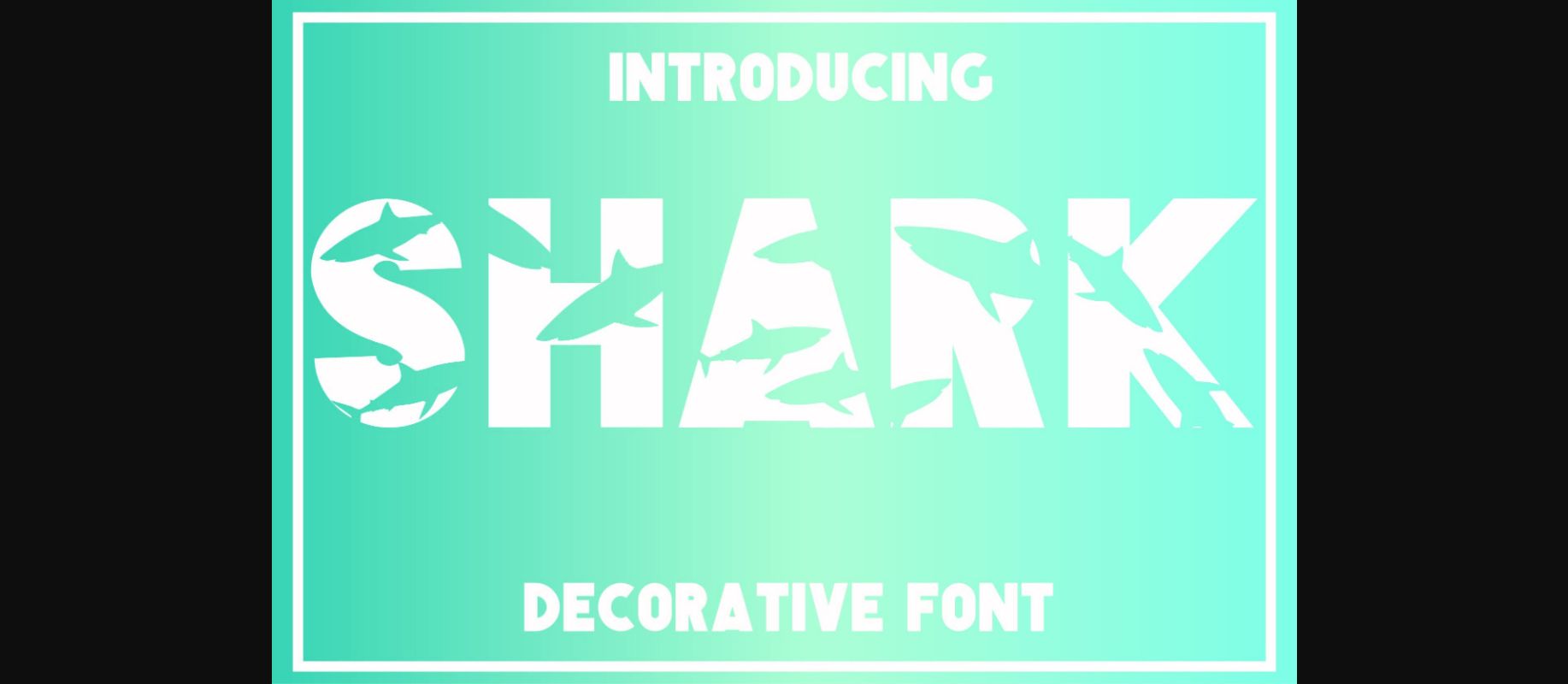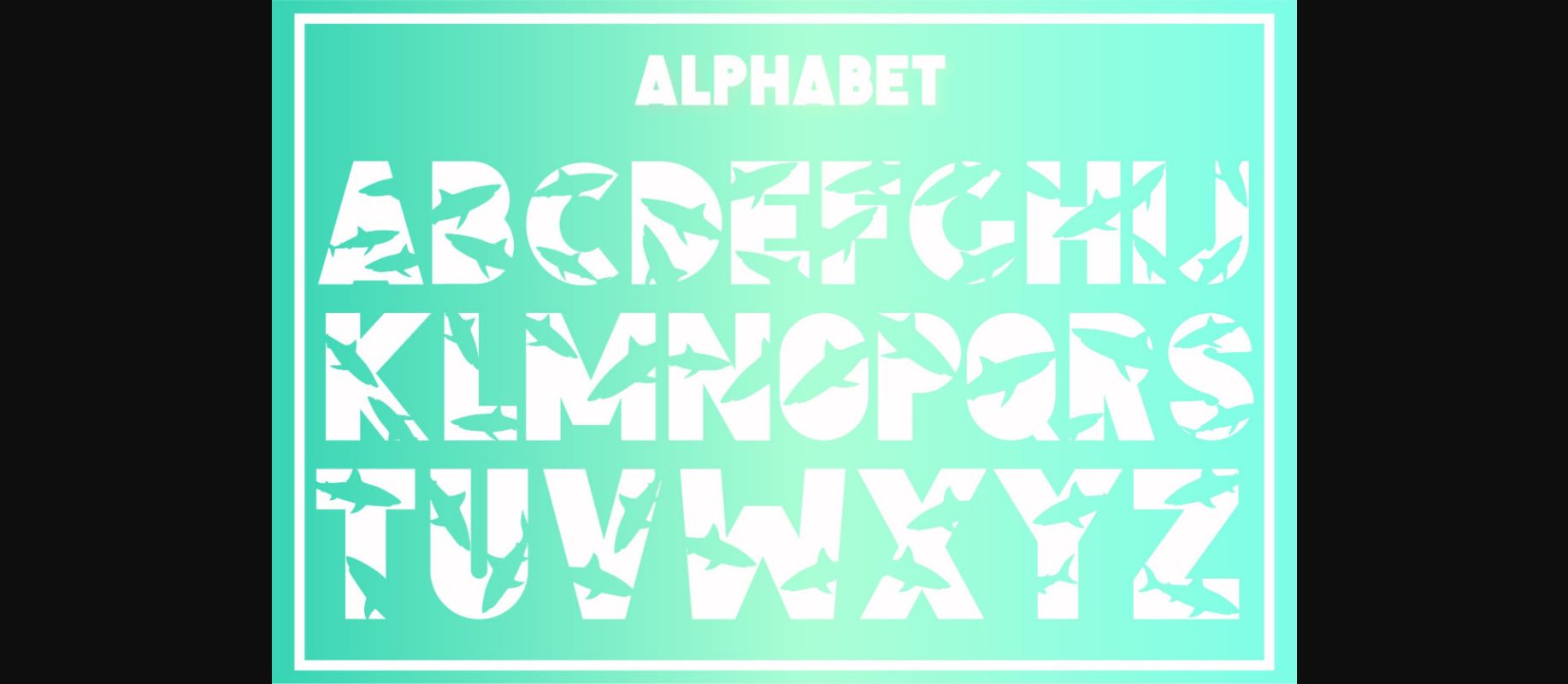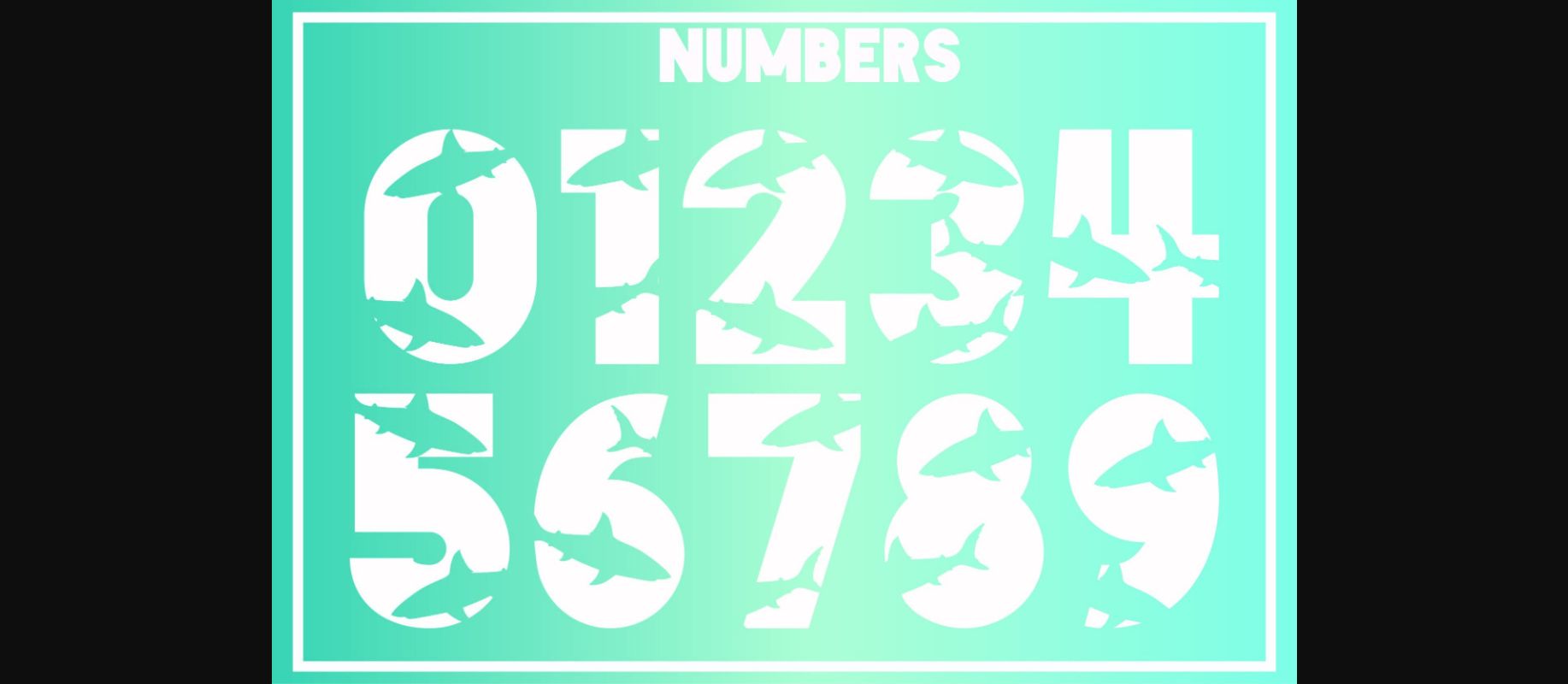
HomeDecorative FontsShark Font Decorative Fonts Shark Font FacebookXPinterestWhatsApp 1 of 5 ... Shark Font Poster 2... Shark Font Poster 3... Shark Font Poster 4... Shark Font Poster 5... About Shark Font Shark is a cool, friendly decorative font. Add it to each of your party invitations, gathering, or pretty much any design that requires a touch of youth and joy. DOWNLOAD NOW People also explored Roksen Font Realistic Mock-ups on Vintage Background Foxrights Font Nexa Slab Cognac Melgard Font Brittany Rays Duo Font Bold Script Font Bundle Vol 1 Schein Font 340 0 TagsSharkShark Font Previous articleSpooky Trick FontNext articleDog Font LEAVE A REPLY Cancel reply Comment: Please enter your comment! Name:* Please enter your name here Email:* You have entered an incorrect email address! Please enter your email address here Website: Save my name, email, and website in this browser for the next time I comment. Personal Use Free Trunk Shaped Personal Use Free Read more about this font Cloudy Night Personal Use Free Read more about this font Lanilla Personal Use Free Read more about this font Einstaint Personal Use Free Read more about this font BLOG 5 Fonts That Will Dominate Design Trends in 2026 5 Fonts for 2026 That Will Dominate Design Trends Typography plays a critical role in visual communication, and as we look ahead to 2026, it’s... Where to Buy American Fonts Online in 2024 Elegant Wedding Invitation Fonts – Handwritten & Script Fonts Fonts That Capture the Spirit of New York City